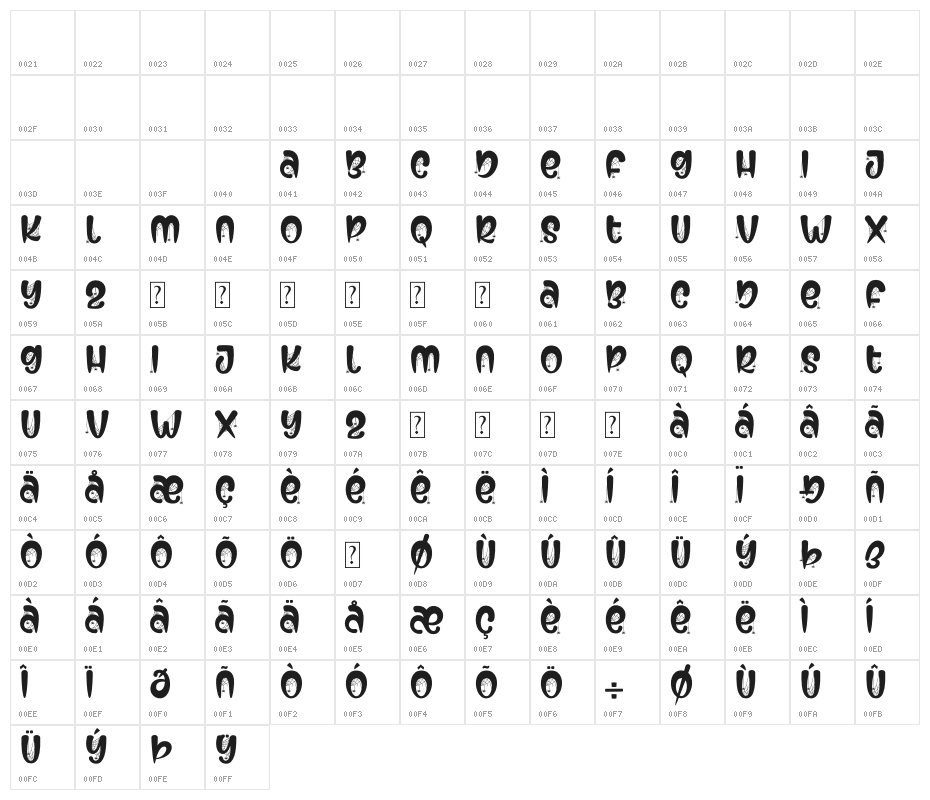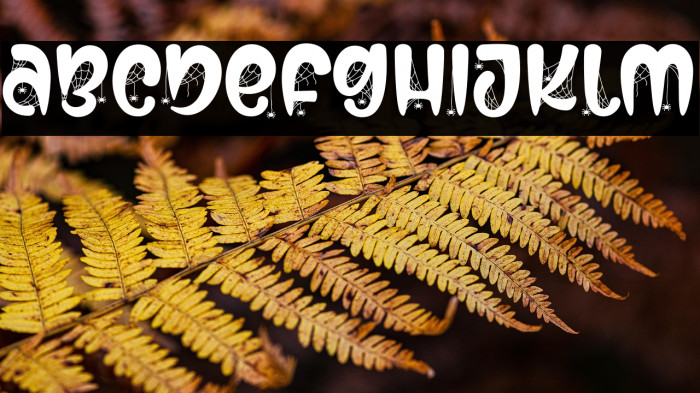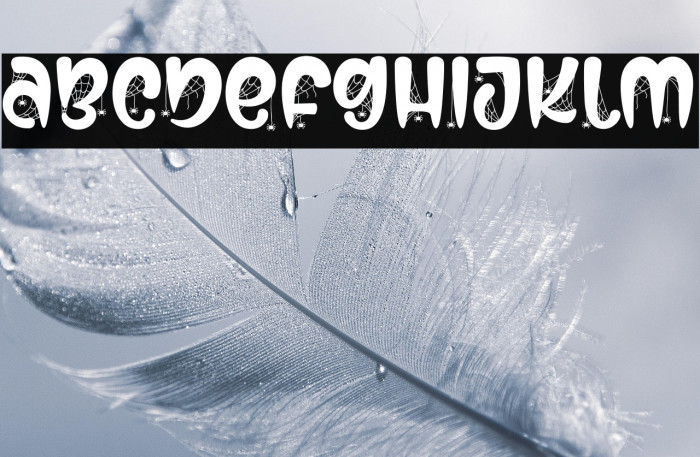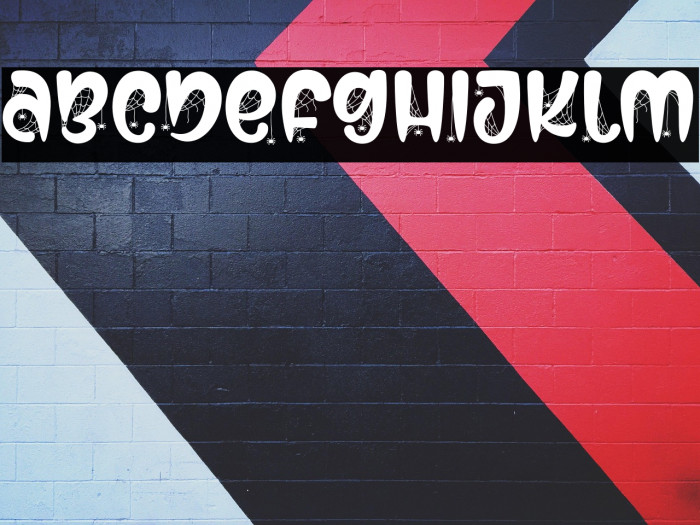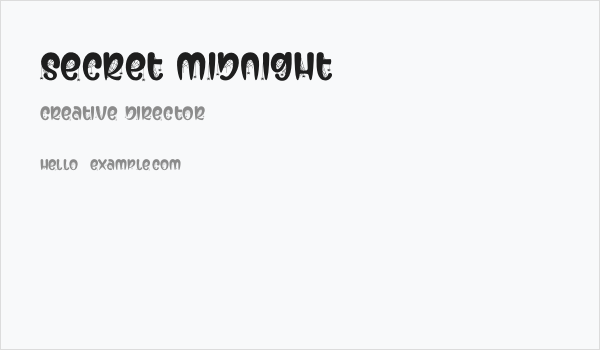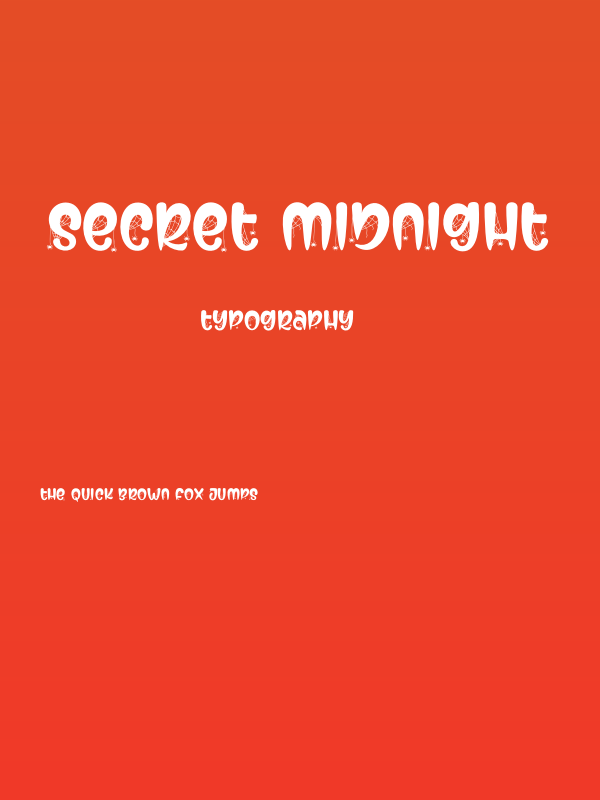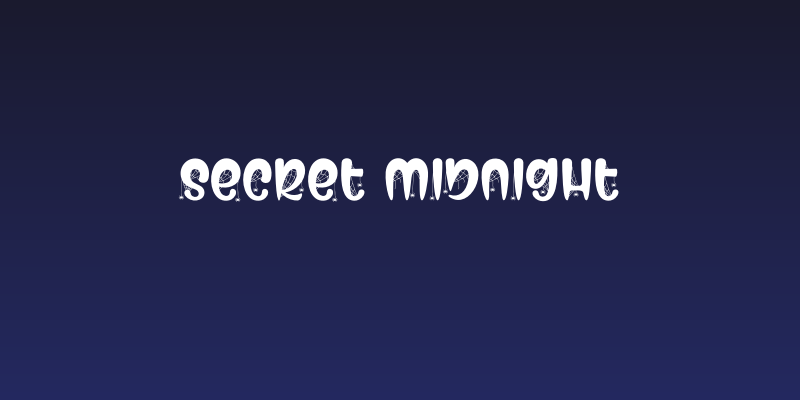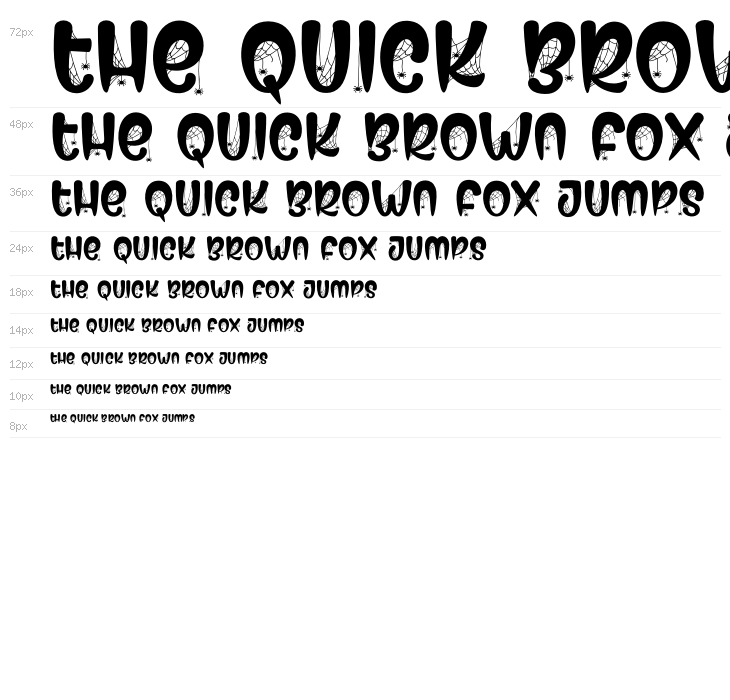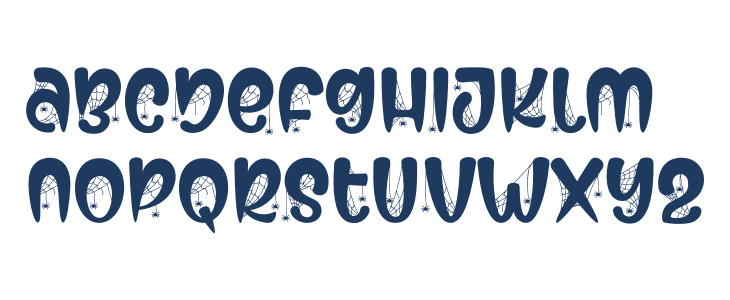
Secret Midnight Font
Secret Midnight Description
This font features a playful and spooky design, incorporating elements like spider webs and small spiders into the characters. The letters are bold and rounded, with a whimsical touch that makes them stand out. The decorative elements are integrated into the strokes, adding a unique flair that is perfect for Halloween-themed projects or anything requiring a mysterious and fun aesthetic. The overall style is both engaging and visually striking, making it suitable for eye-catching displays.
| Use Case | Headlines, Logos, Themed Events |
| Proposed Projects | Ideal for Halloween invitations, themed party decorations, children's book covers, and playful branding. |